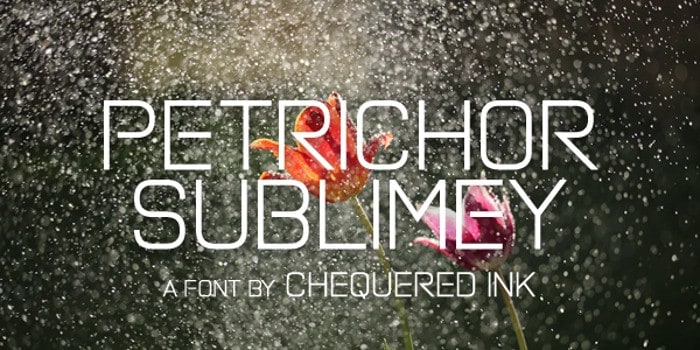
Petrichor Sublimey Display Font is elegant sans serif display typeface. A modern sans-serif typeface designed to look great when used for both headlines and large chunks of texts. You can use it for anything from magazine covers, website titles and articles to professional business cards, product packaging, album covers and more.